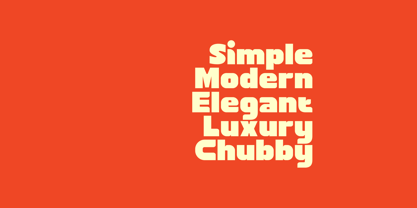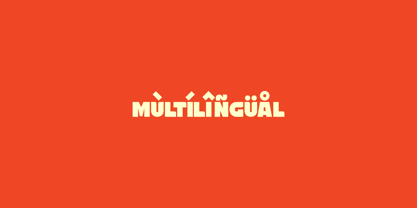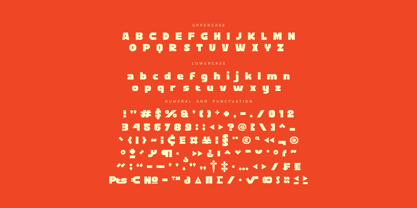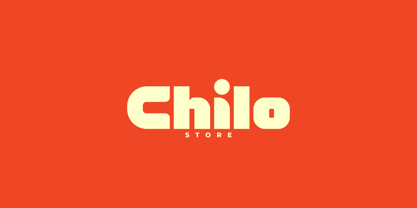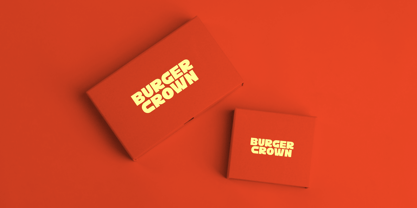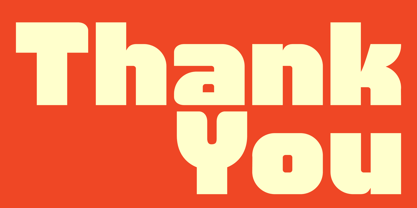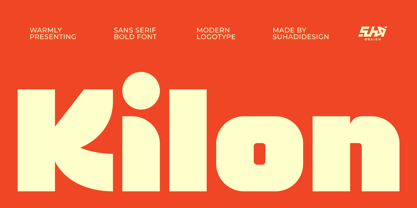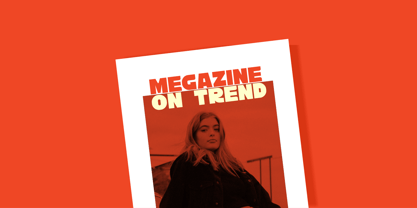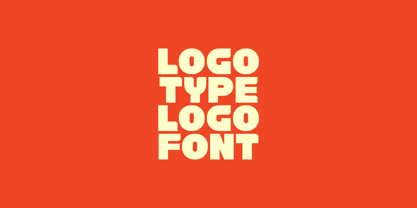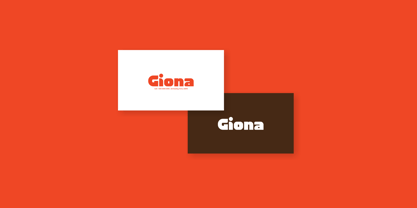
Kilon
The Kilon Font Family was designed by ahmad suhadi and published by suhadidesign. Kilon contains 1 styles. More about this family
Kilon - Bold Display Font Hi, ladies and gentlemen! In response to market demand, I created a bold, cool, elegant, and handsome sans serif font. So, I decided to create this sans serif font. Kilon is a modern sans serif font, hoping to become a market favorite. We've kept this font elegant, classy, ​​modern, stylish, contemporary, and easy to use. Kilon is a great choice for magazines, book covers, shopping bags, packaging, logos, labels, fashion, posters, banners, bags, branding, fashion, brand names, branding, quotes, and other projects. Kilon is here to take your designs to the next level. Kilon's font style will make you love design and take advantage of the cool design results of this font. Stay tuned for our font updates :) Font Features: • Uppercase • Lowercase • Multilingual support • Numbers and punctuation Thank you!